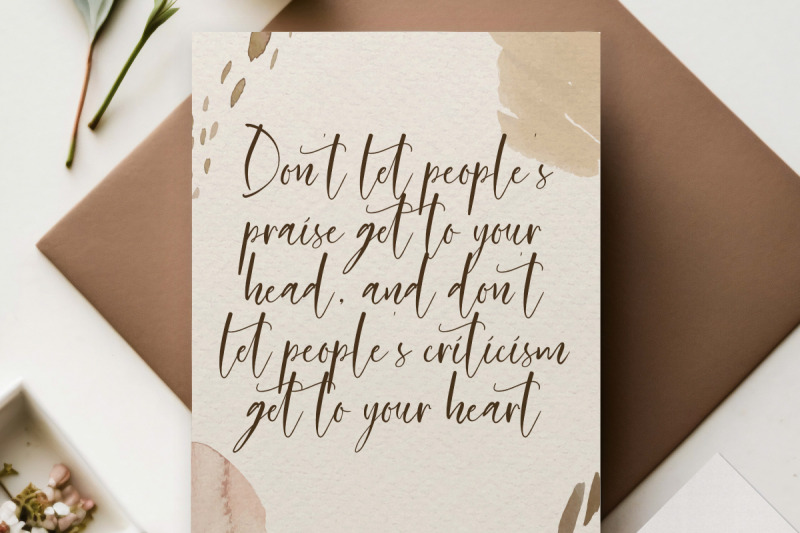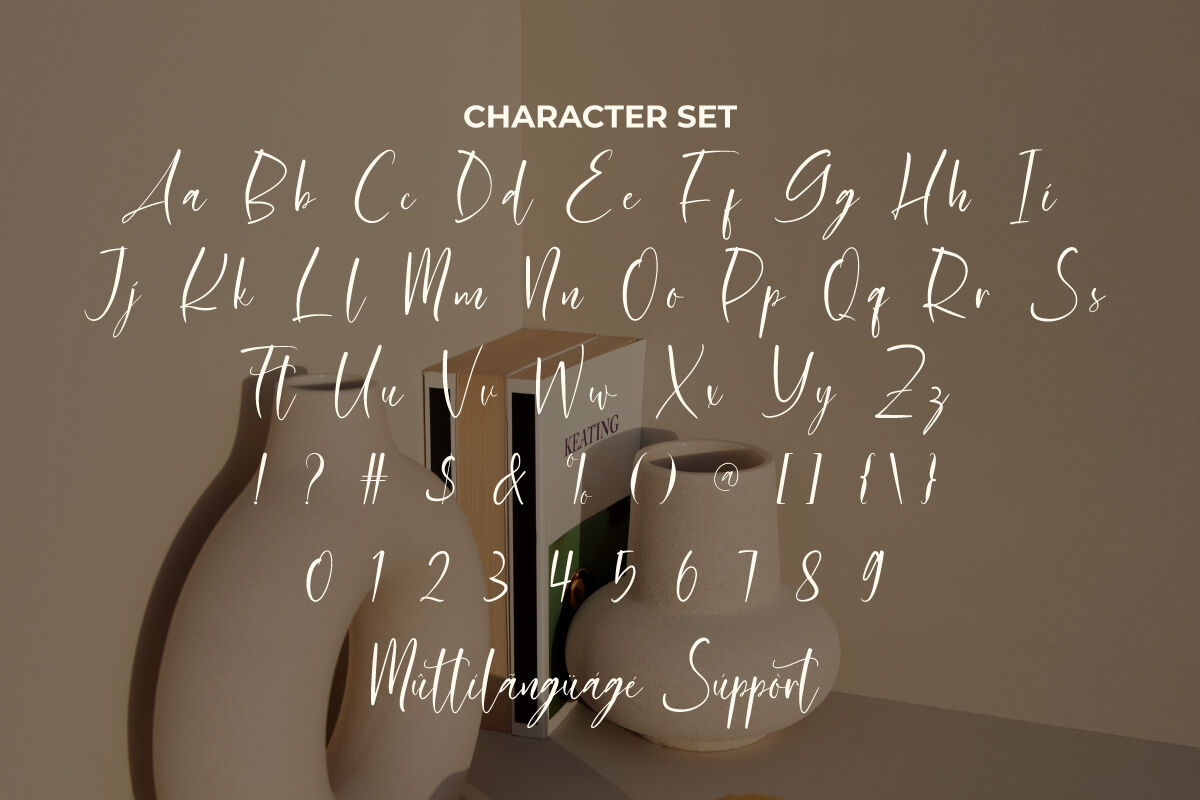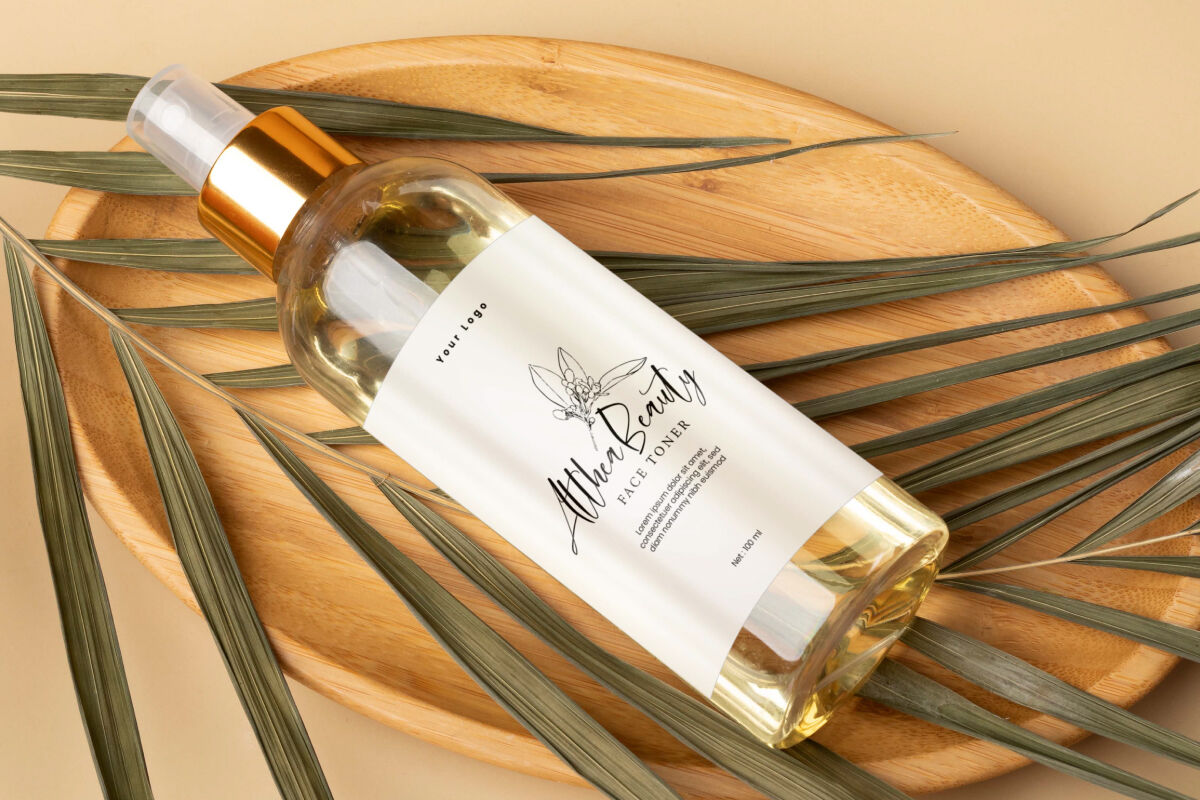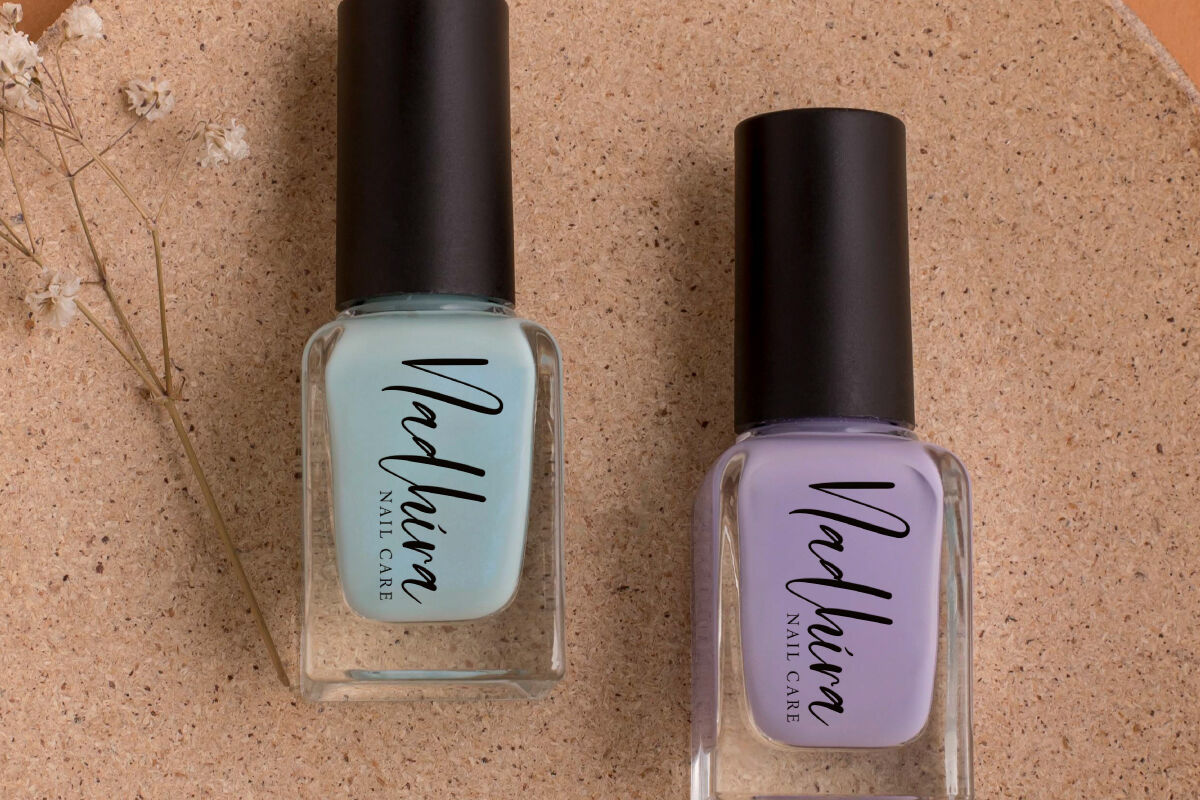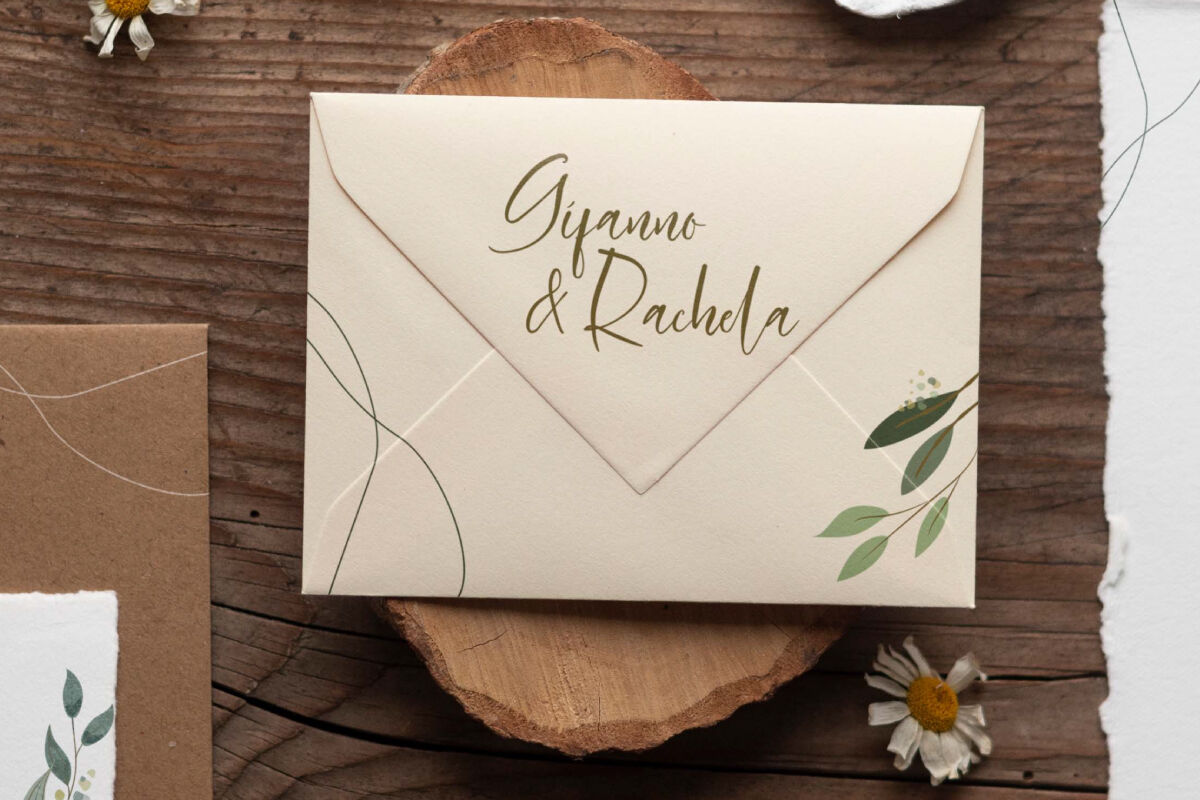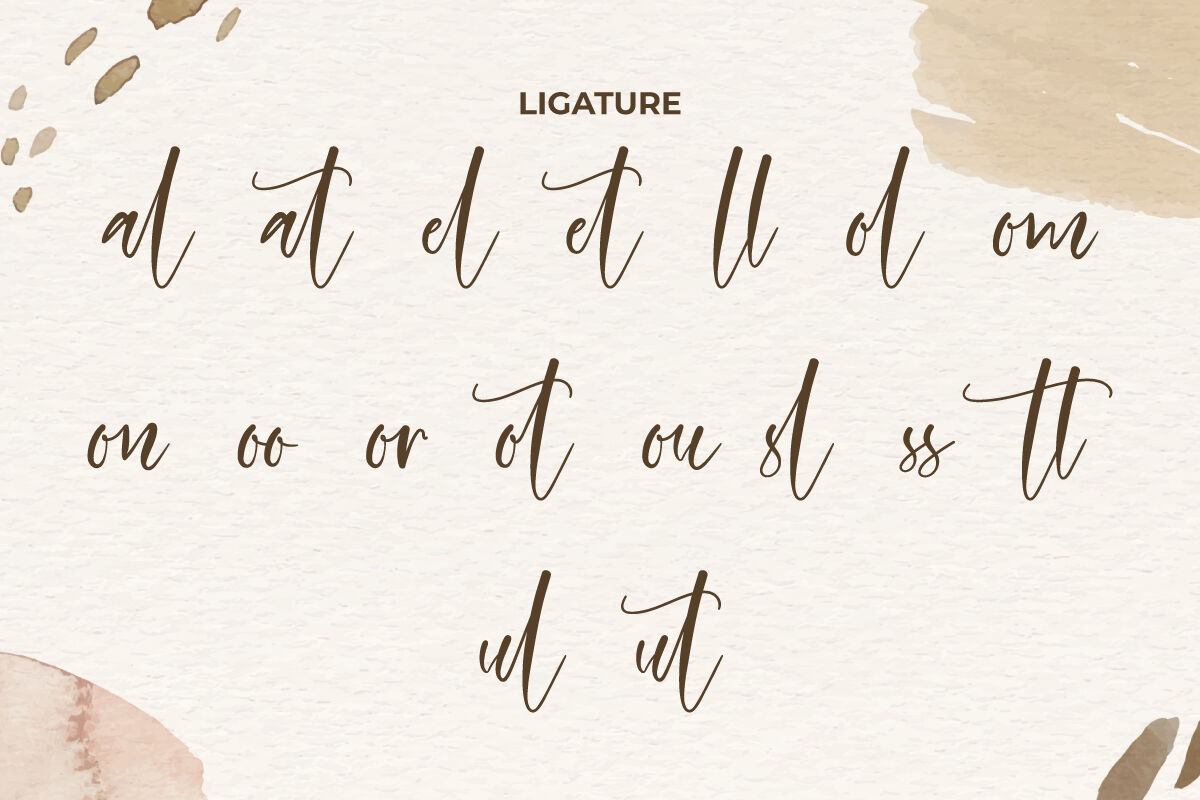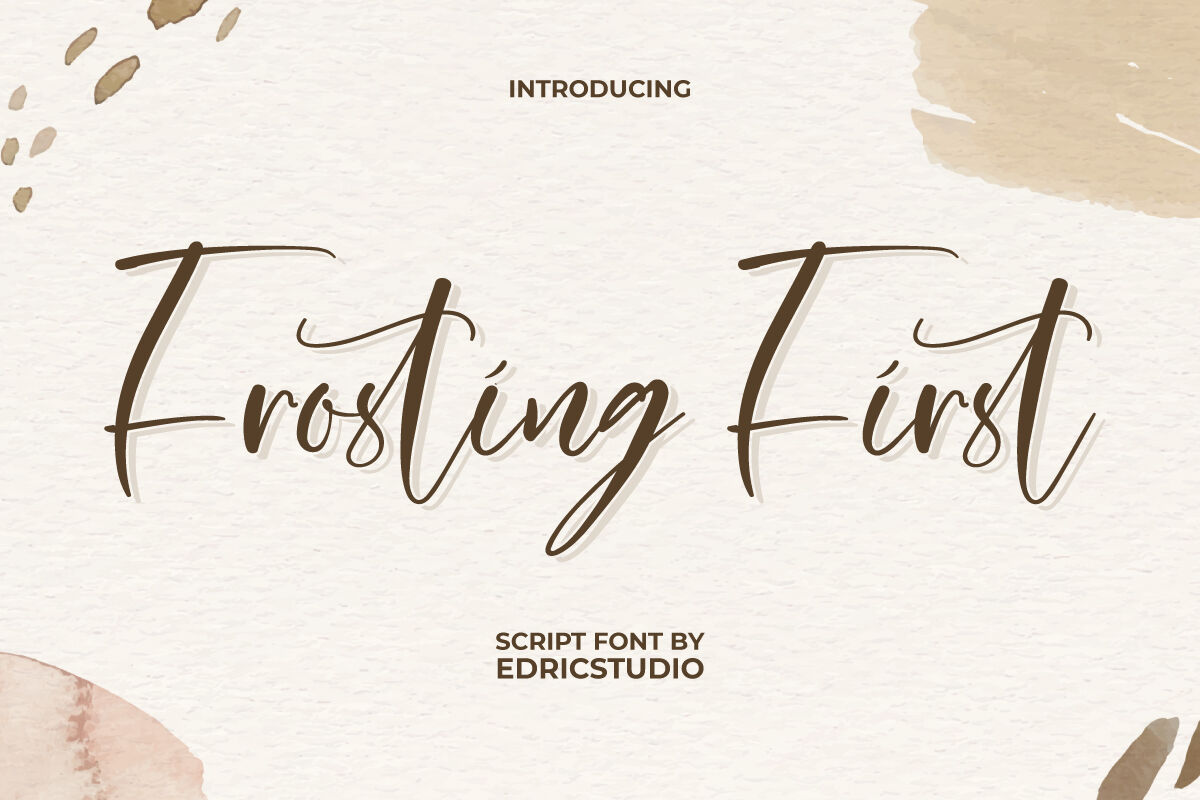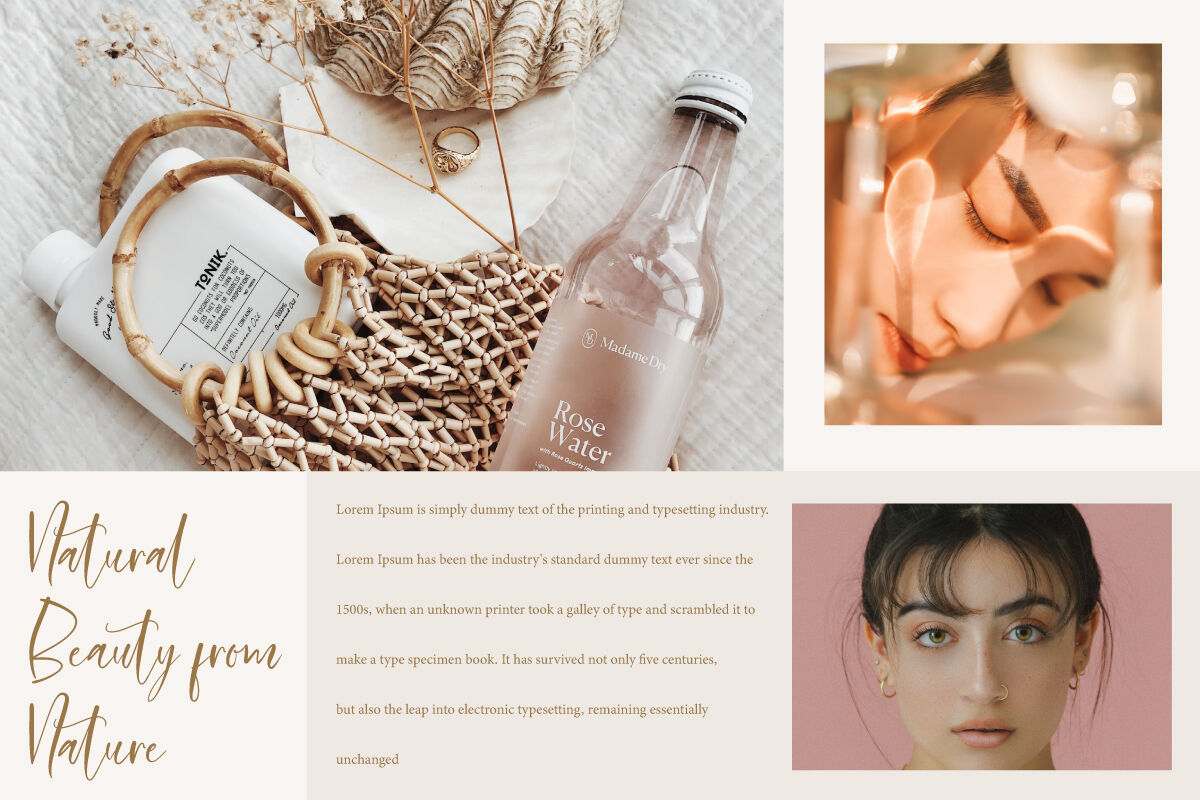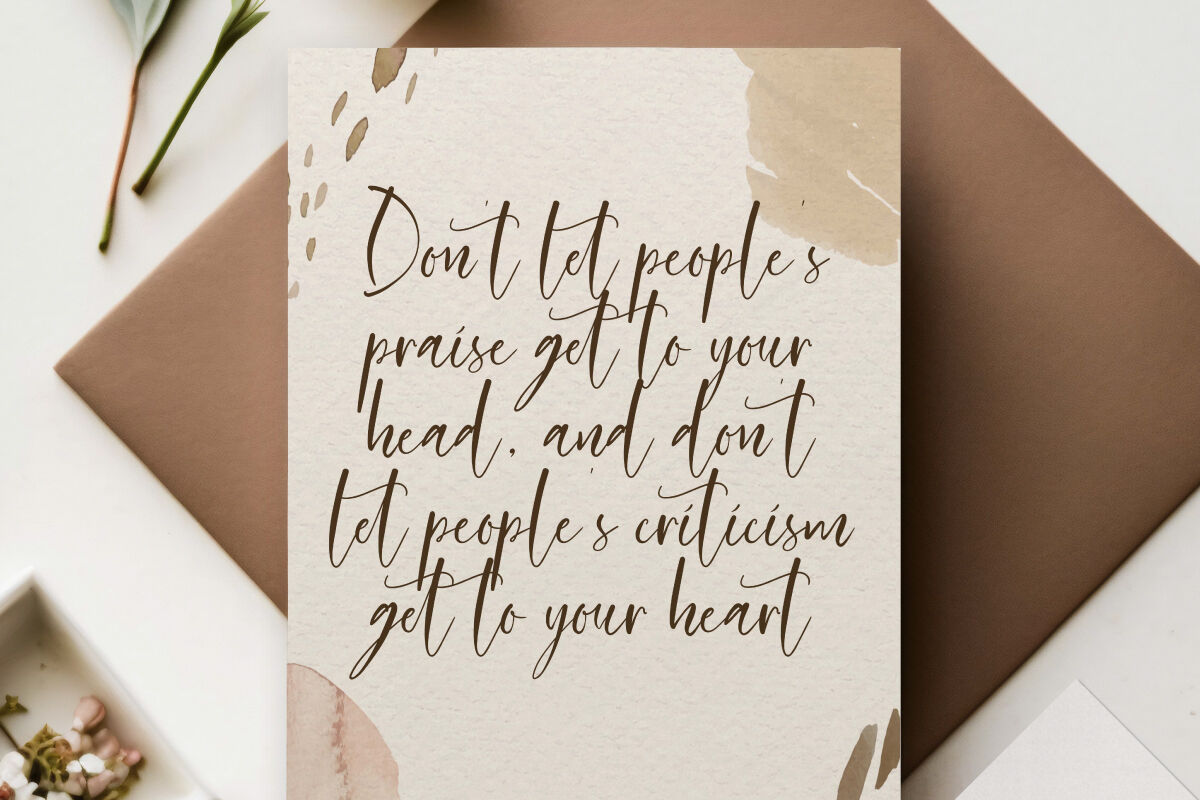
Frosting First Font is an awesome calligraphic handwriting script font. It comes with an elegant touch needed for blogs, branding logo, greeting cards, invitations, labels, product packaging, product design, quotes, social media posts, stationery, stickers, title, watermarks, websites, and more! The design looks interesting with a natural touch.
Introducing Frosting First Script Font – a sweet, playful, and elegant typeface designed to make your projects shine with personality and charm. With its flowing strokes and hand-drawn script style, this font is perfect for creating designs that feel warm, inviting, and full of creativity.
Whether you’re designing bakery logos, product packaging, wedding invitations, greeting cards, or social media graphics, Frosting First Script Font delivers a delightful handwritten touch. Its smooth curves and stylish characters bring a sense of fun and elegance that works beautifully across both casual and formal projects.
Frosting First Script Font is a beautiful premium font created to bring a luxurious and refined feel to any design. The combination of timeless elegance and contemporary style makes it a perfect choice for advertisements, cosmetic, florist, graphic design, home furniture, photography, skincare, spa salon, wedding, and others. It comes with a full set of Uppercase and Lowercase letters, Number, Punctuation, Symbol and Ligatures.
Frosting First Script Font also supports multilingual characters which are ready to use either on Windows or Mac machines with a simple installation. In order to use alternative characters, usually we just need to block the end letters and select alternative letters on glyphs option. Combine different characters for a bespoke, handcrafted feel. It’s tested to work well in the Adobe Apps (Illustrator, Adobe InDesign, Adobe Photoshop) even work on Microsoft Word. All of these characters are available through the glyph panel, moreover each letter has its own unicode (PUA) so you can access all the characters easily.